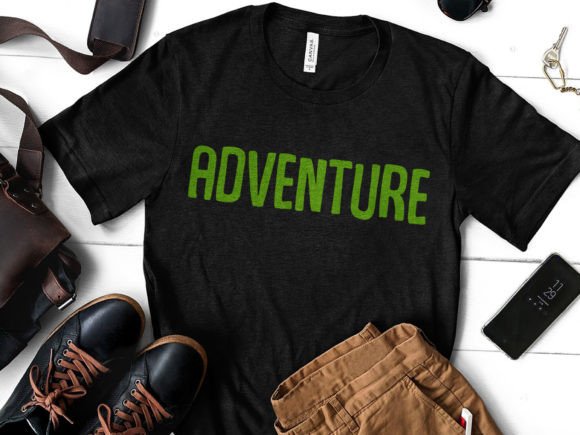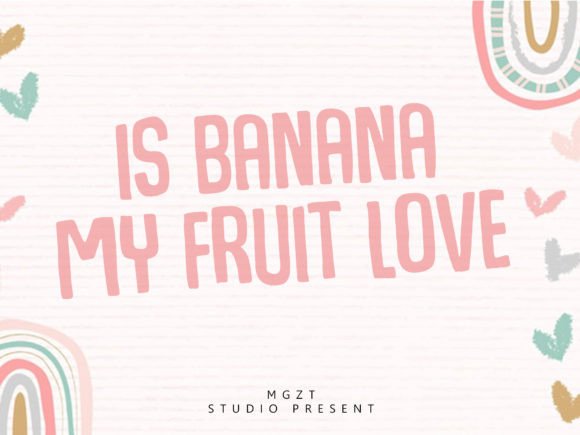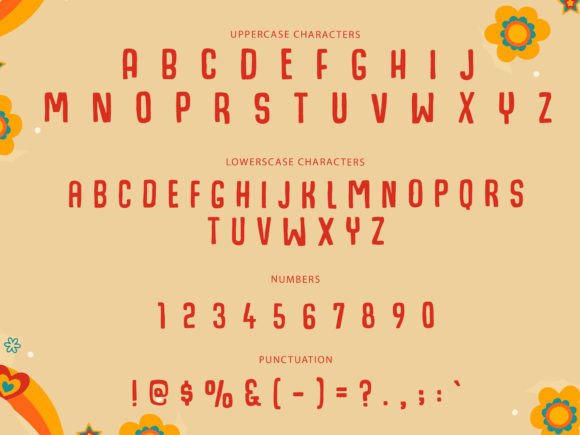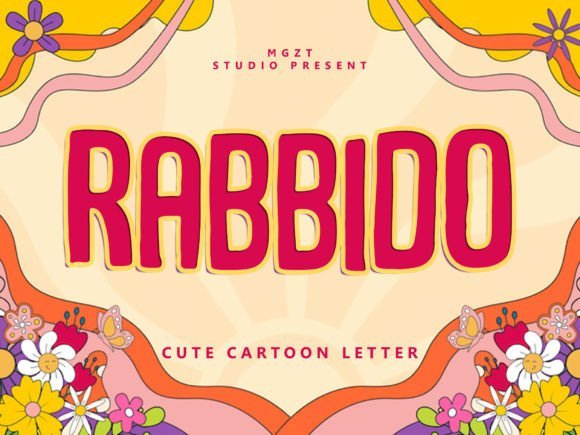
Introduction to Rabbido Font
Rabbido is crafted with a focus on simplicity and sweetness, ensuring readability while maintaining its delightful appearance.
The compact size and endearing design of Rabbido make it an excellent choice for adding a touch of joy and charm to your text, whether it’s for a lighthearted logo, a fun poster, or any creative endeavor that seeks to bring smiles .
Key Features of Rabbido Font
Why Choose Rabbido Font?
Rabbido Font offers exceptional quality and versatility, making it a valuable addition to your design toolkit. Whether you’re creating for personal projects or commercial use, Rabbido Font delivers professional results.